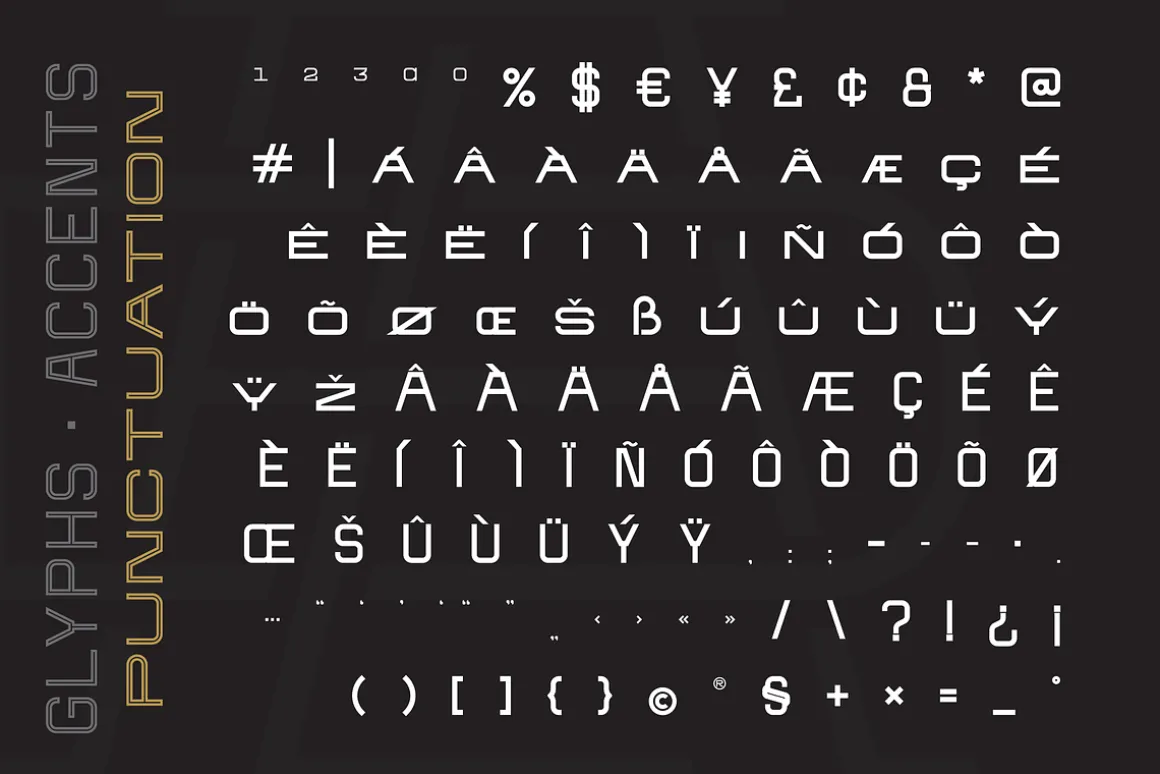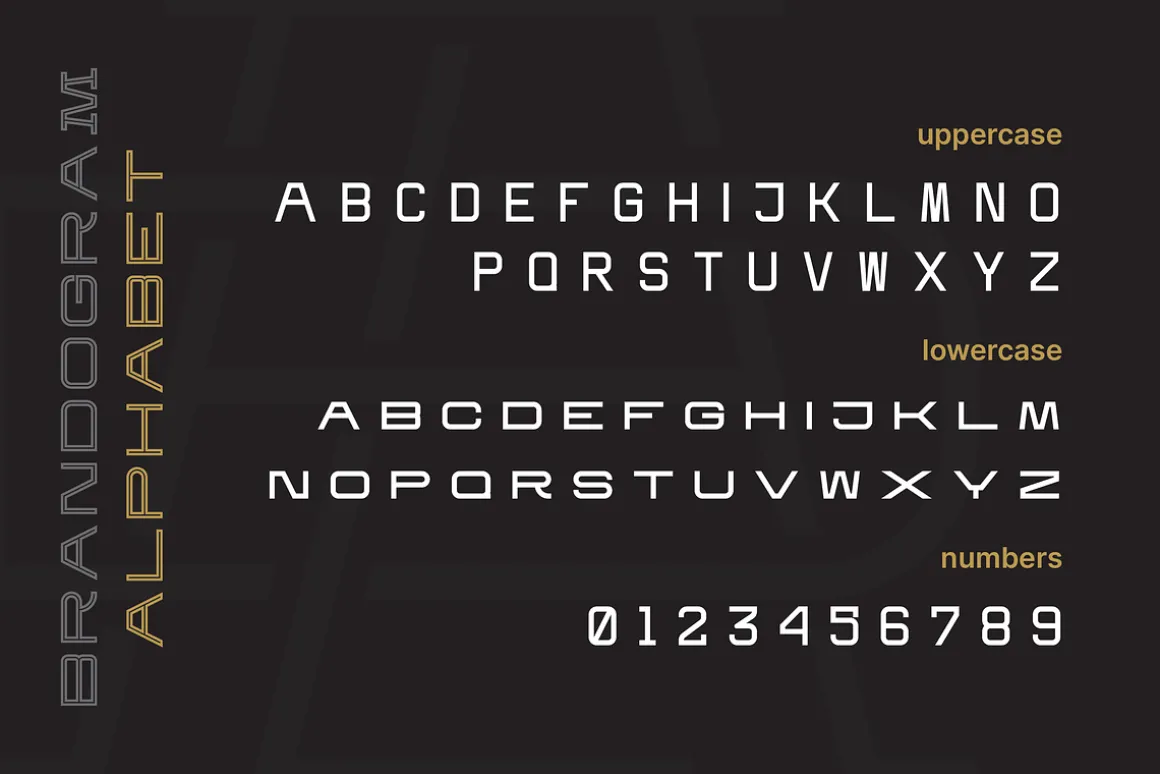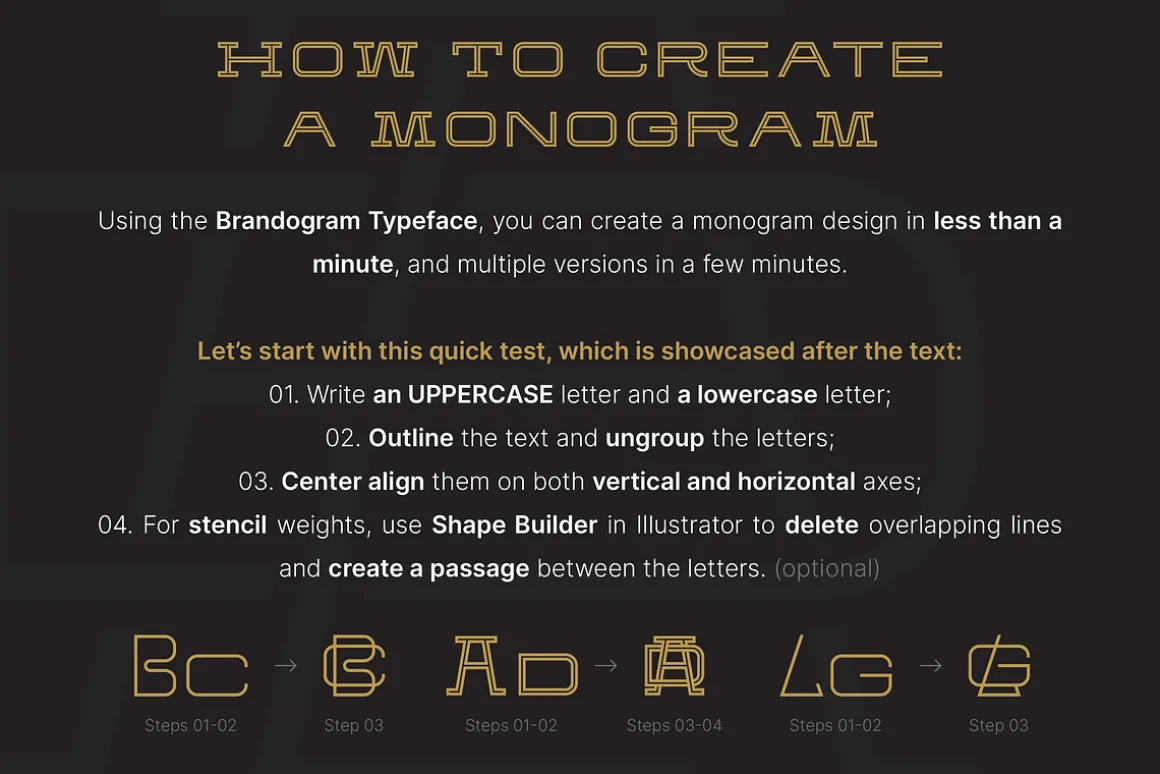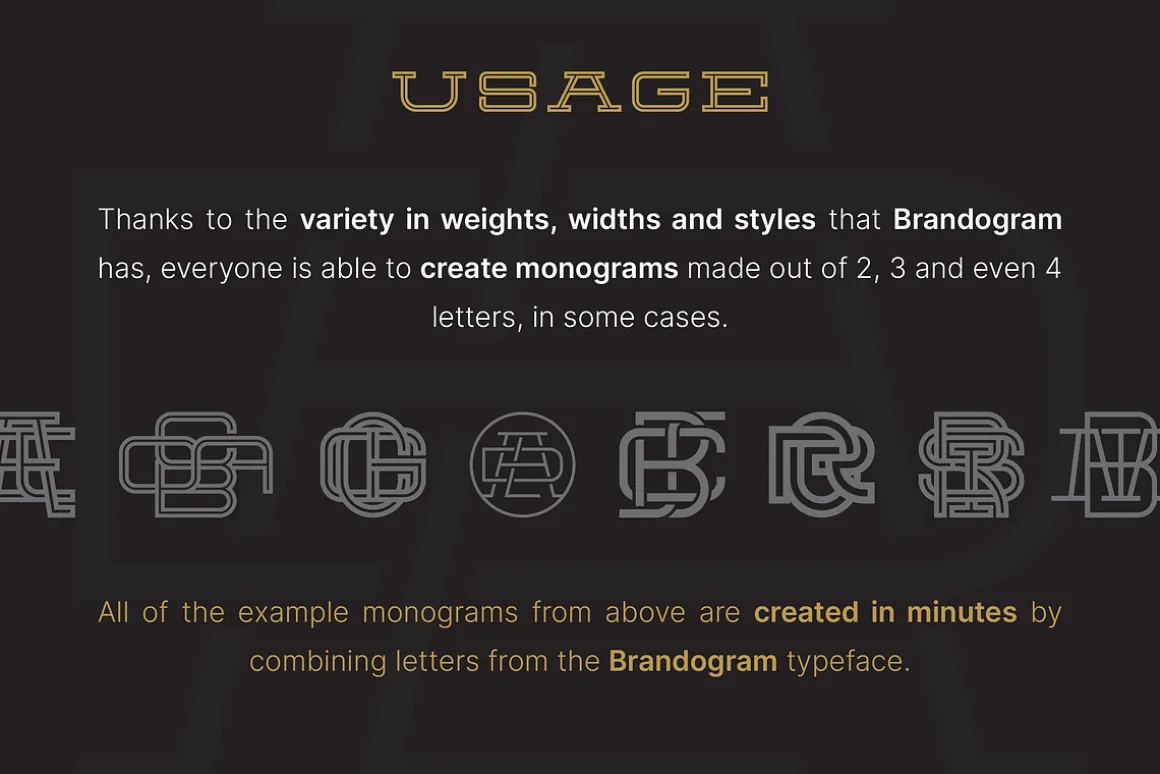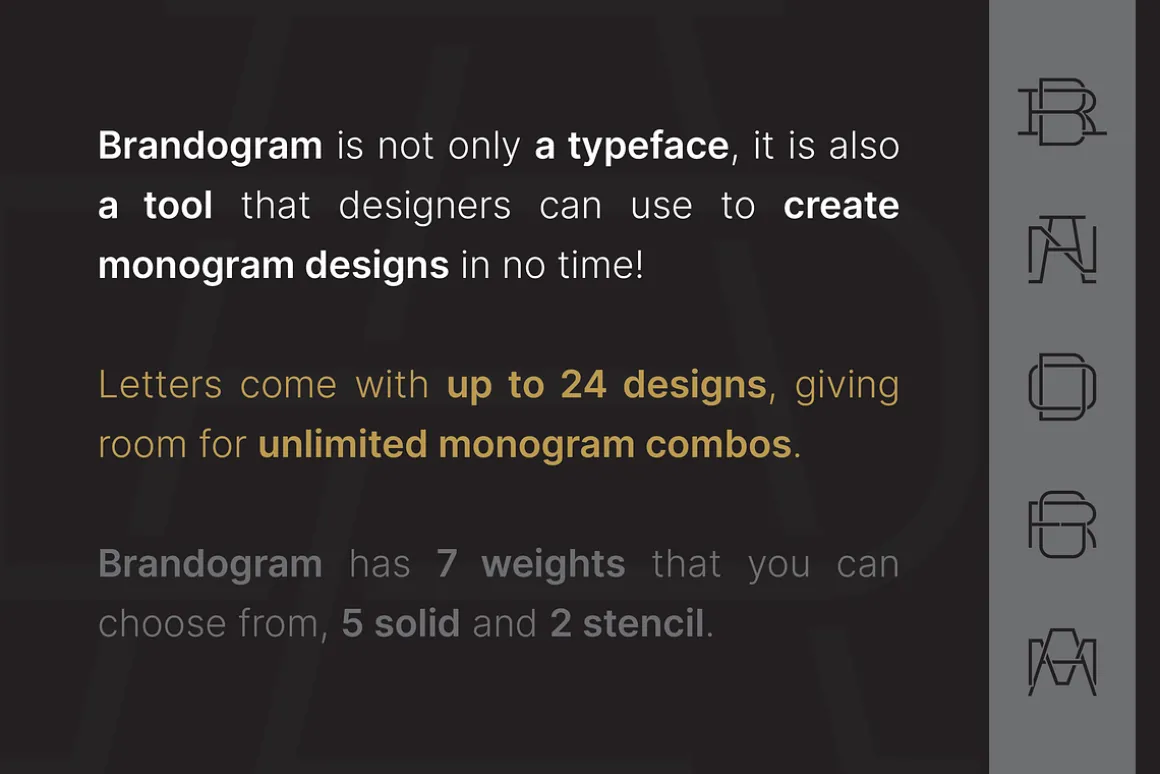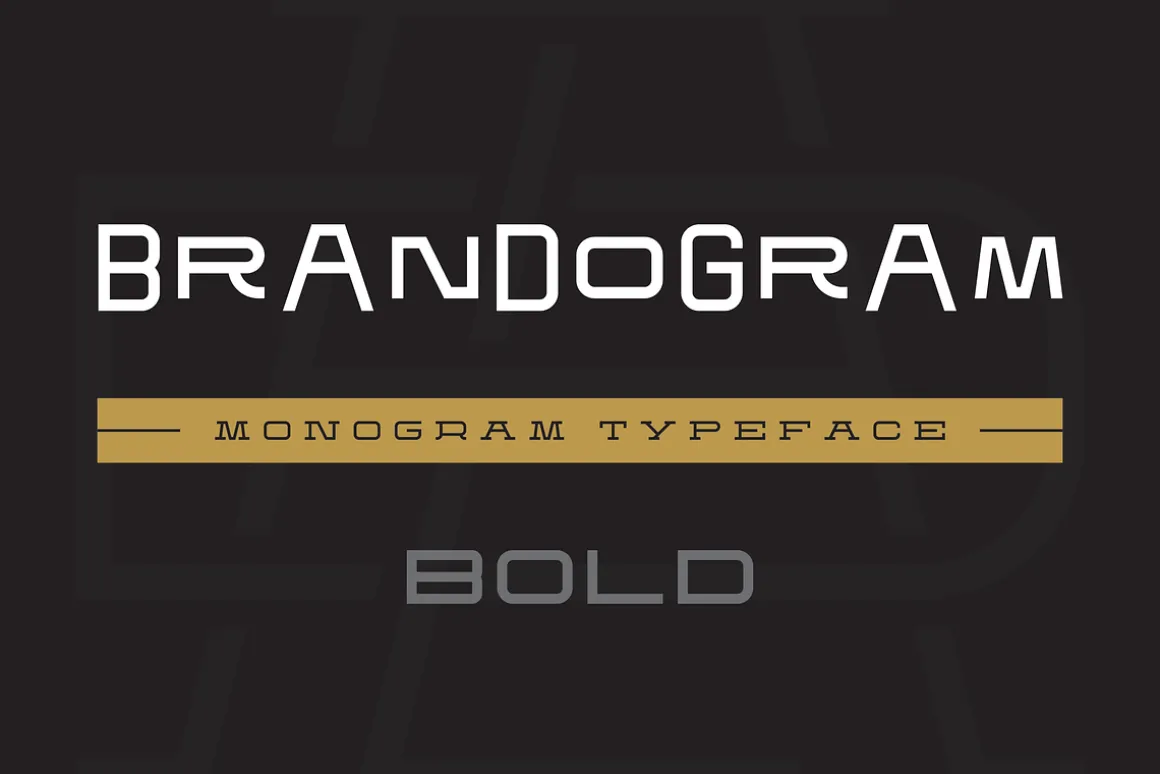
After months of testing and development, we have managed to put together the Brandogram Typeface, an ultimate tool for monogram design. With the help of this typeface you can easily create a monogram in less than a minute.
Thanks to the way we have created and optimised Brandogram, the uppercase letters effortlessly fit together with the small caps that are activated by the lowercase letters.
Using the Brandogram typeface you can easily create unlimited monogram combos with 2, 3 and even 4 letters.
This is the “Bold” weight and some of its features include:
- Multiple letter widths, from condensed to wide;
- Both sans serif and slab serif letter designs;
- Up to 24 different designs per letter;
- All letter variations are available as alternates so you can easily choose your favorite;
- Accents are available for each letter alternate;
- Uppercase and lowercase activated letters are constructed to perfectly center and middle align.